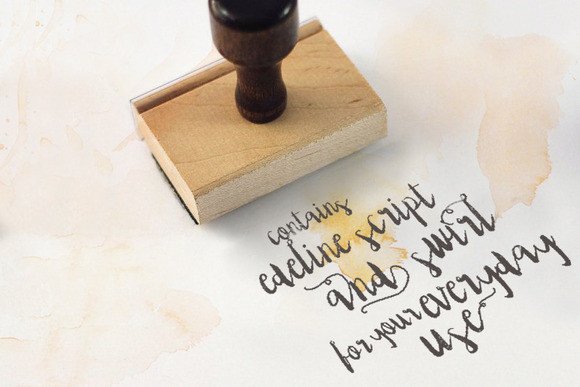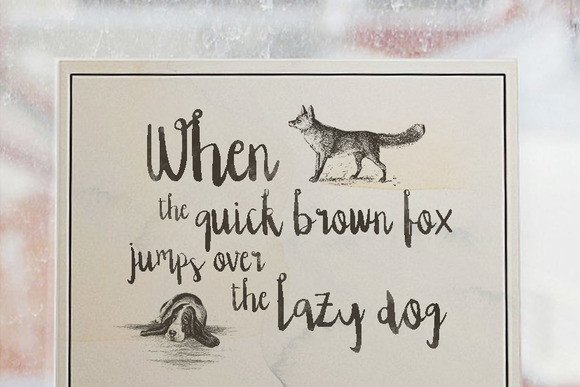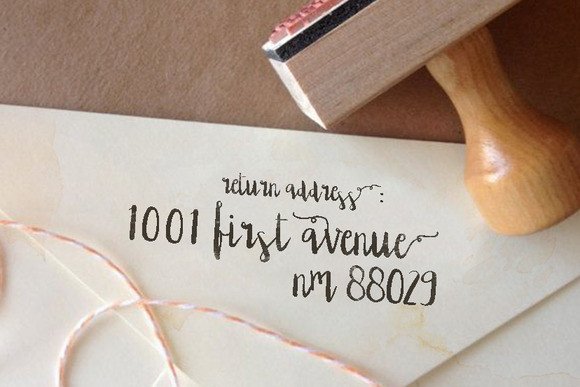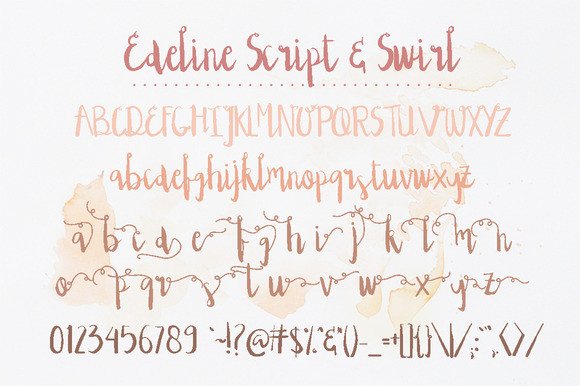
Introducing Edeline Font: The Chic Typeface for Your Design Projects
Are you a designer or crafter looking for a unique and stylish typeface to elevate your design projects? Look no further than Edeline Font, a chic and versatile font that is perfect for a wide range of creative endeavors. In this article, we’ll take a closer look at Edeline Font, its features, and how you can use it to add a touch of elegance and whimsy to your designs.
What is Edeline Font?
Edeline Font is a beautiful and modern typeface that is designed to add a touch of sophistication and femininity to your designs. The font comes in two stylish styles: a script and a swirl. The script style is perfect for creating elegant and flowing text, while the swirl style adds a playful and whimsical touch to your designs.
Key Features of Edeline Font
- Two stylish styles: Edeline Font comes in two styles: a script and a swirl. You can use these styles separately or combine them to create a unique and eye-catching design.
- Feminine and elegant: Edeline Font is designed to add a touch of femininity and elegance to your designs. The script style is perfect for creating beautiful and flowing text, while the swirl style adds a playful and whimsical touch.
- Versatile: Edeline Font is a versatile typeface that can be used for a wide range of design projects, from wedding invitations and party decorations to branding and packaging.
How to Use Edeline Font in Your Design Projects
Edeline Font is a versatile typeface that can be used in a wide range of design projects. Here are a few ideas to get you started:
- Wedding invitations: Use Edeline Font to create beautiful and elegant wedding invitations that will set the tone for your special day.
- Party decorations: Add a touch of whimsy and fun to your party decorations with Edeline Font. You can use the swirl style to create playful and eye-catching decorations.
- Branding and packaging: Use Edeline Font to create a unique and stylish brand identity for your business. The font is perfect for creating labels, packaging, and marketing materials.
- DIY crafts: Edeline Font is also perfect for DIY crafters who love to create handmade cards, gift tags, and other paper crafts.
Tips and Tricks for Using Edeline Font
Here are a few tips and tricks for using Edeline Font in your design projects:
- Mix and match: Don’t be afraid to mix and match the script and swirl styles to create a unique and eye-catching design.
- Experiment with colors: Edeline Font looks great in a wide range of colors. Experiment with different colors and combinations to find the perfect look for your design.
- Add embellishments: Add embellishments, such as flowers or leaves, to your design to give it a more whimsical and playful touch.
Edeline Font is a beautiful and versatile typeface that is perfect for designers and crafters who want to add a touch of elegance and whimsy to their design projects. With its two stylish styles, feminine and elegant design, and ease of use, Edeline Font is a must-have for anyone looking to elevate their designs. Whether you’re creating wedding invitations, party decorations, or branding and packaging, Edeline Font is the perfect choice.